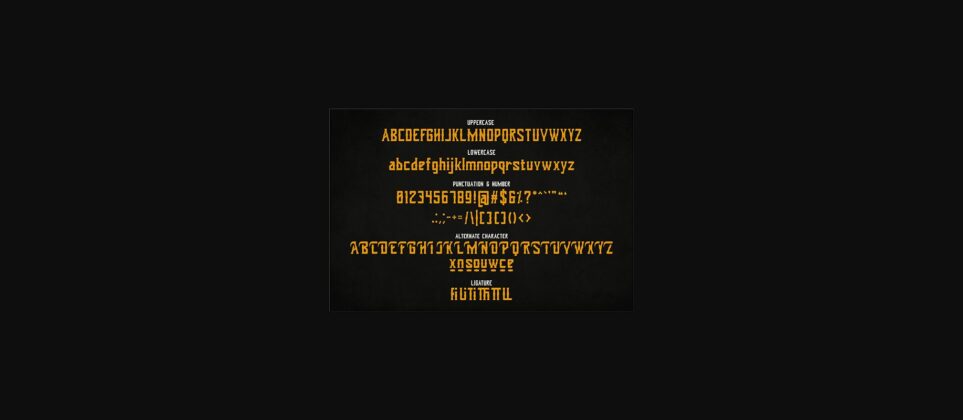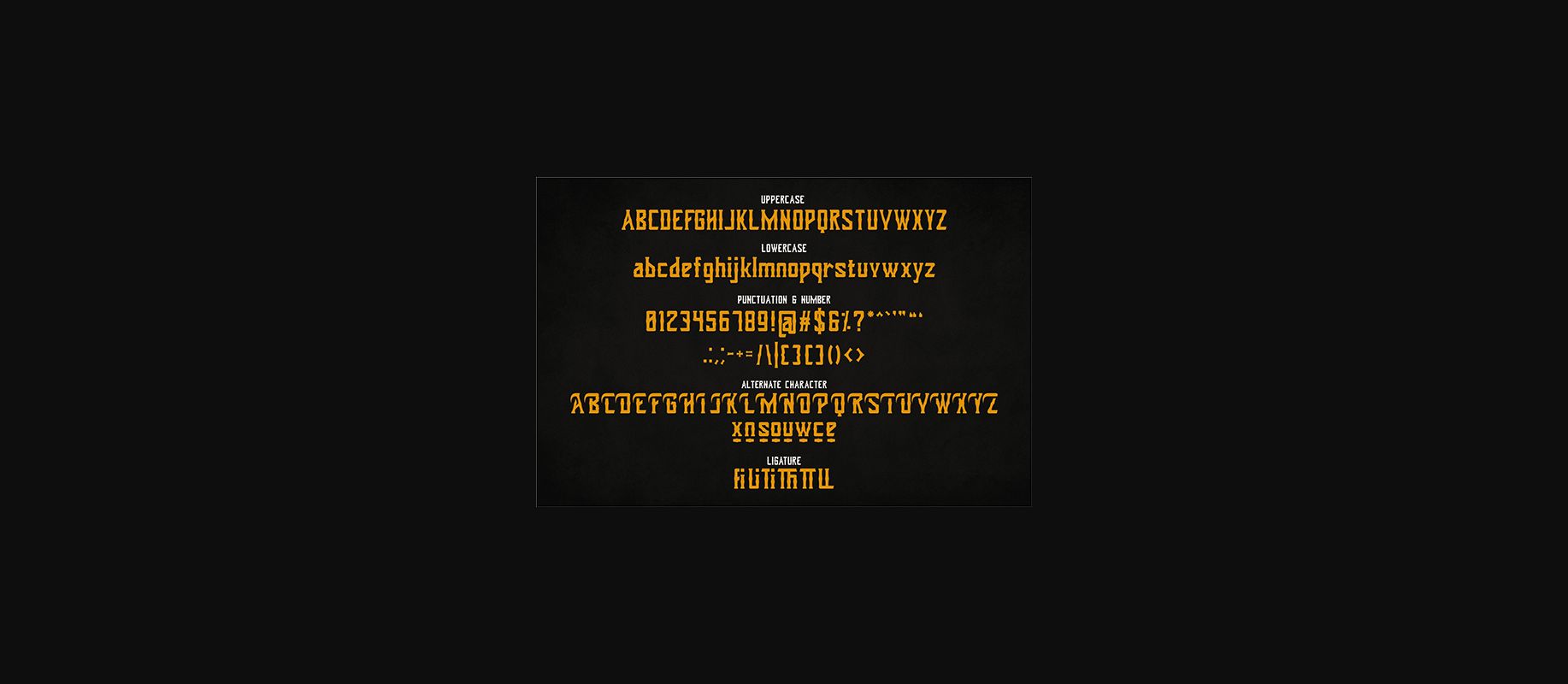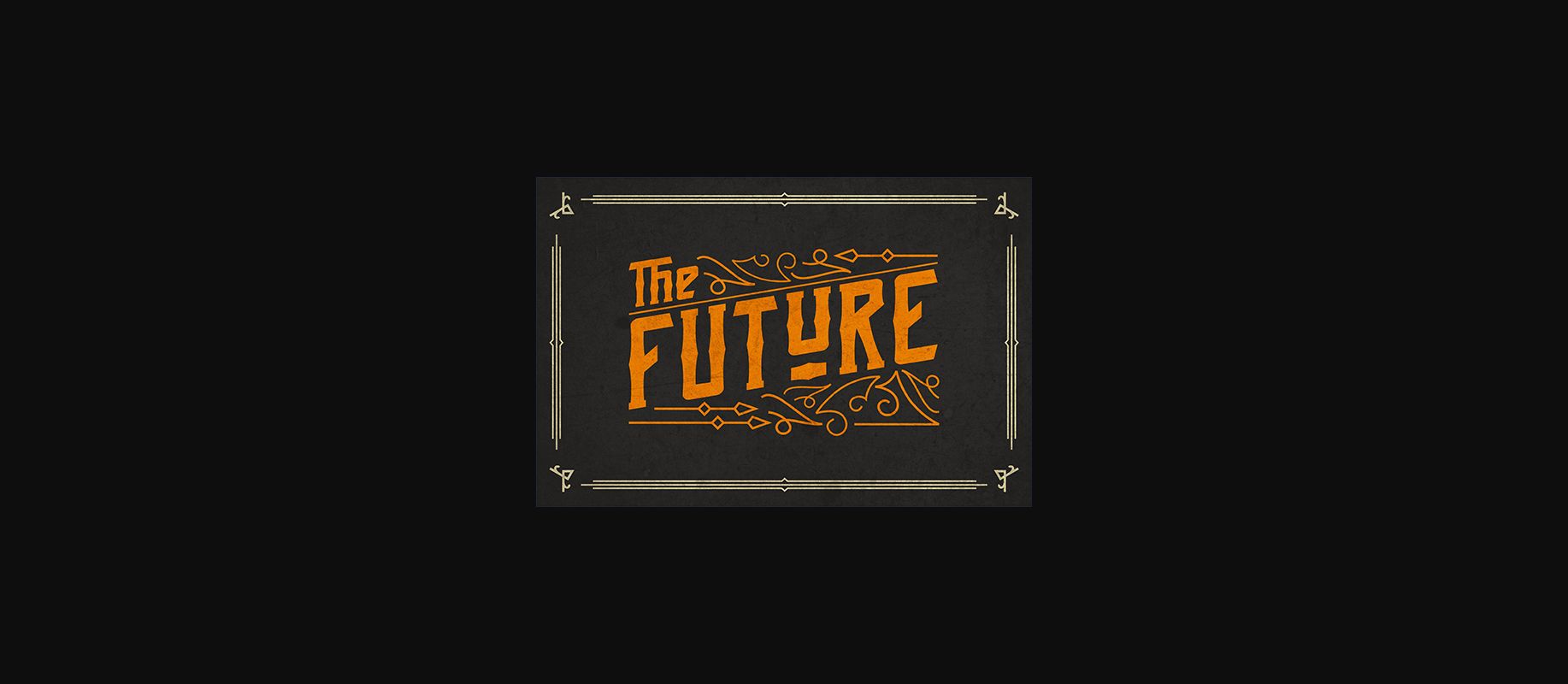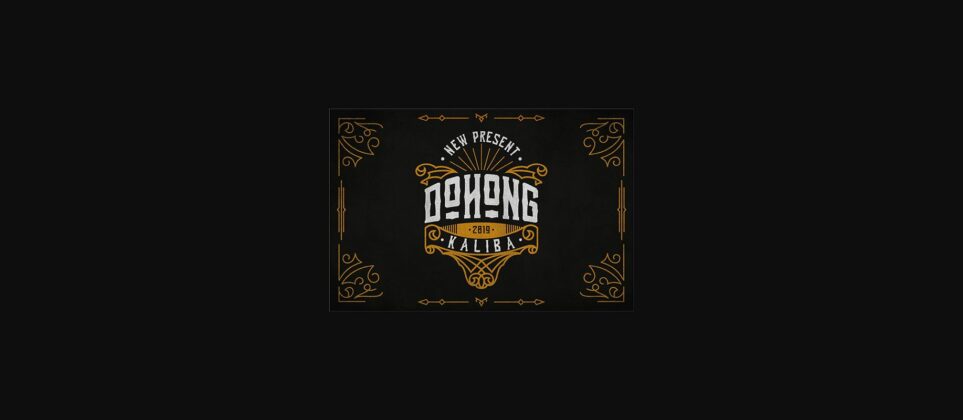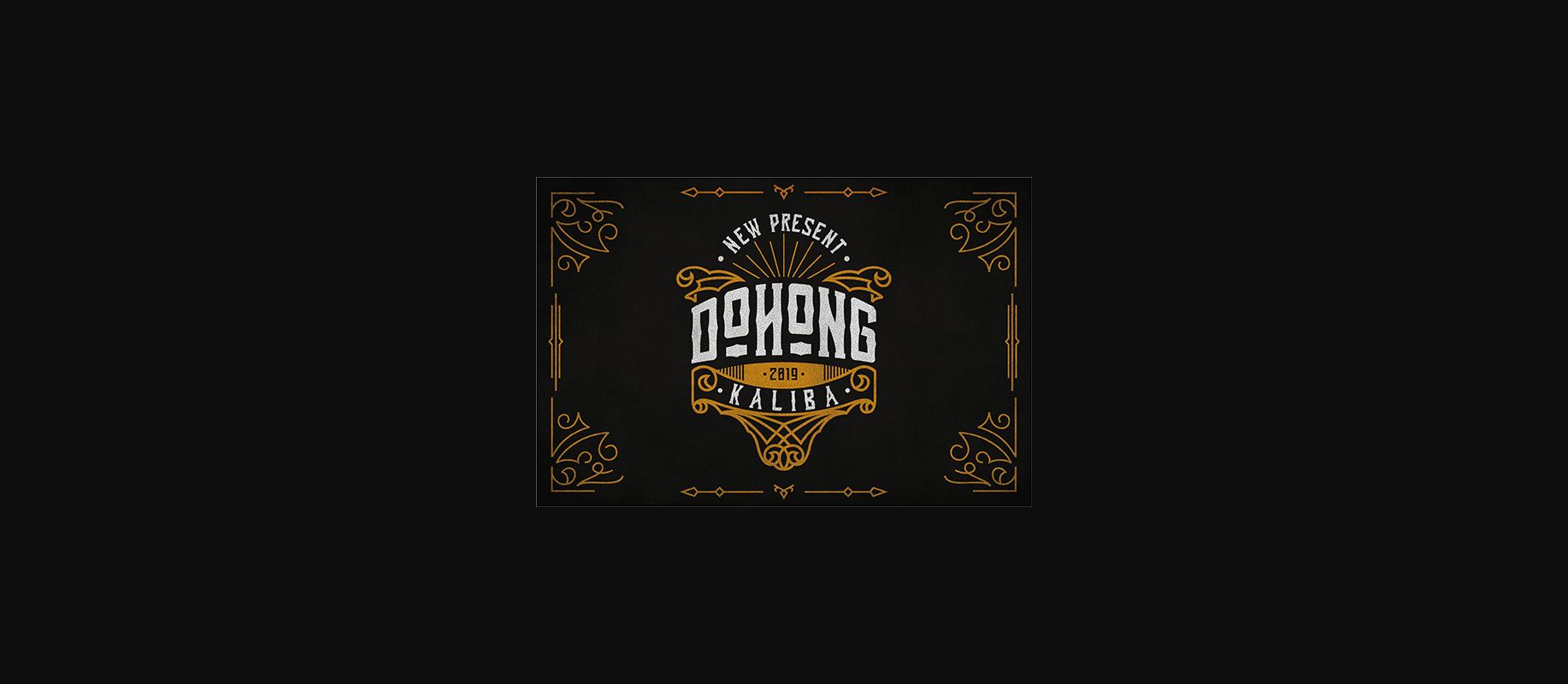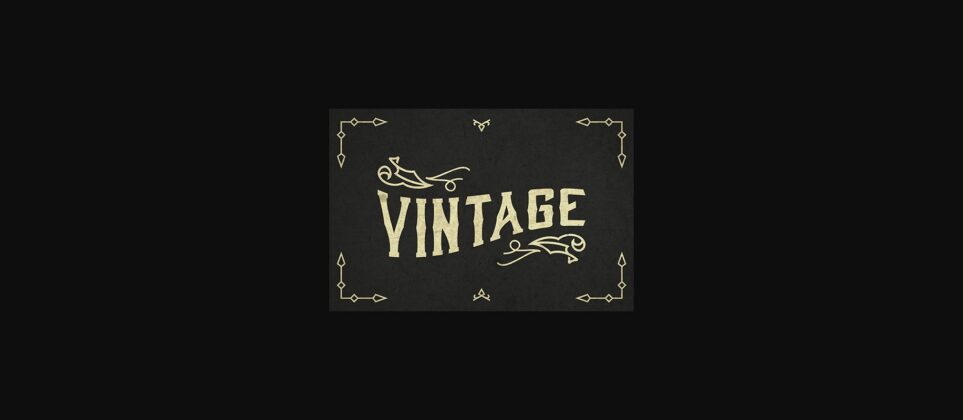
About Dohong Kaliba Font
The Dohong Kaliba is born from an original and hand-drawn style font. It has a classic, vintage style which is perfect for logos, branding materials, t-shirts, prints, business cards, and every other design which needs an unique and striking typeface.